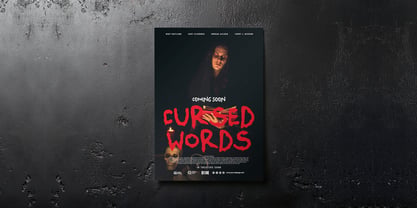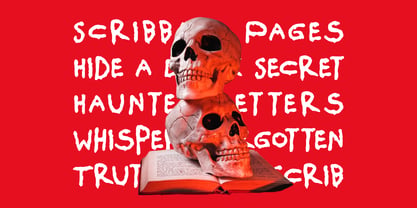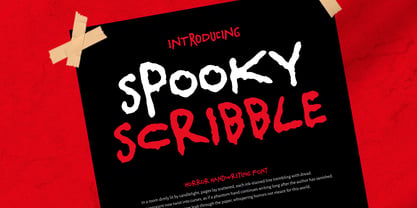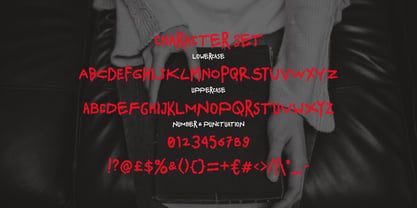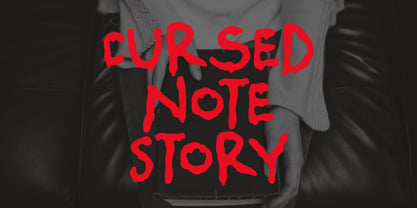
Spooky Scribble
by Shanaf
The Spooky Scribble Font Family was designed by Yesie Erma Yunita and published by Shanaf. Spooky Scribble contains 1 styles. More about this family
Spooky Scribble is a horror handwriting font that channels fear straight from the page. Every letter drips with chaotic energy, resembling scribbles written in haste, madness, or panic. The irregular strokes, sharp angles, and jittery flow evoke unsettling emotions, making this font ideal for haunted story covers, thriller posters, and horror branding. It includes uppercase, lowercase, numerals, and punctuations — all drawn with a human, unsteady hand that mirrors the essence of psychological horror and found footage aesthetics.
Designed to amplify fear and urgency, Spooky Scribble adds personality to every project with a gritty, handwritten tone. Whether you’re designing a cursed diary, a horror movie title, or unsettling packaging, this font delivers maximum impact. The bold red and white tones from the previews pair perfectly with dark backgrounds and cinematic layouts. Use it for logos, event posters, Halloween merchandise, or any design that needs to scream terror. Let your creativity roam where the shadows dwell.
Designers: Yesie Erma Yunita
Current Foundry: Shanaf